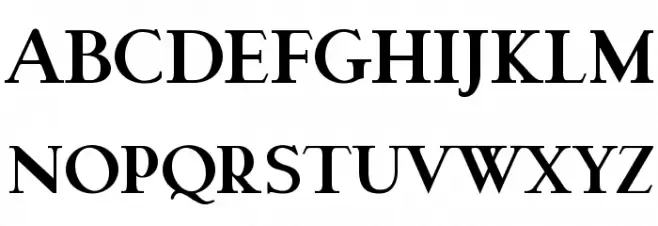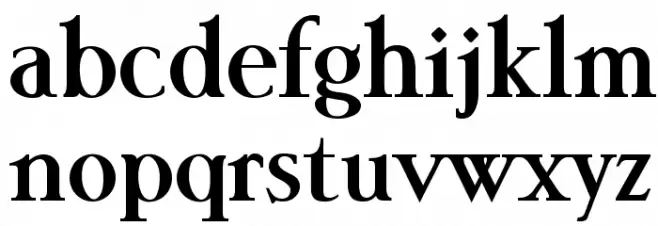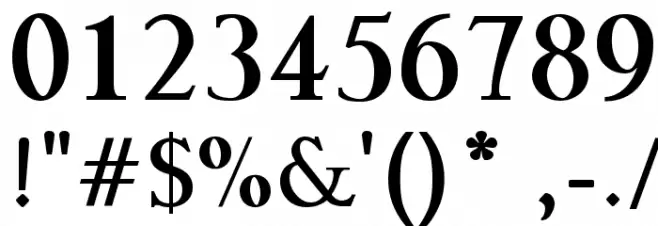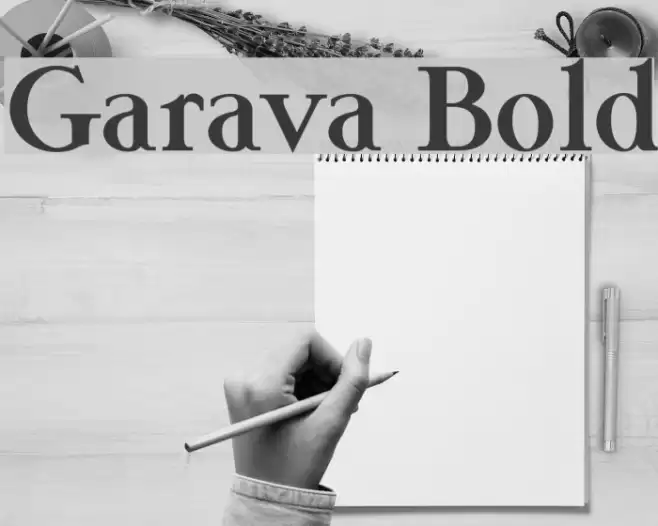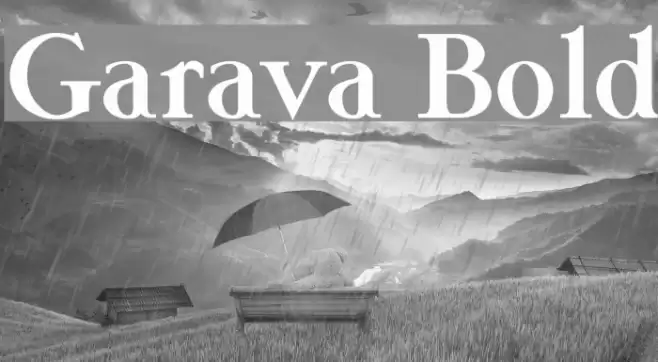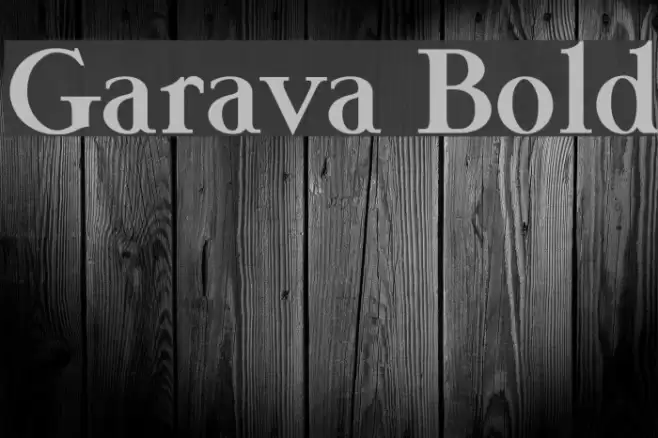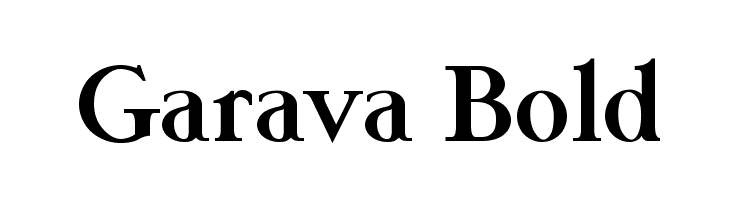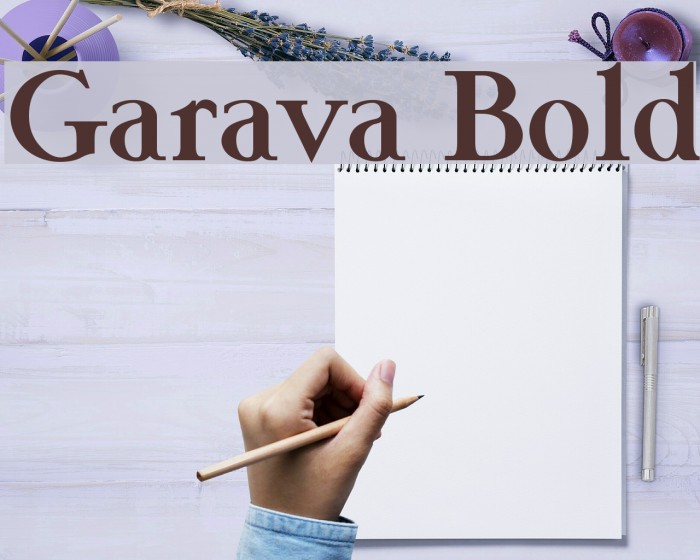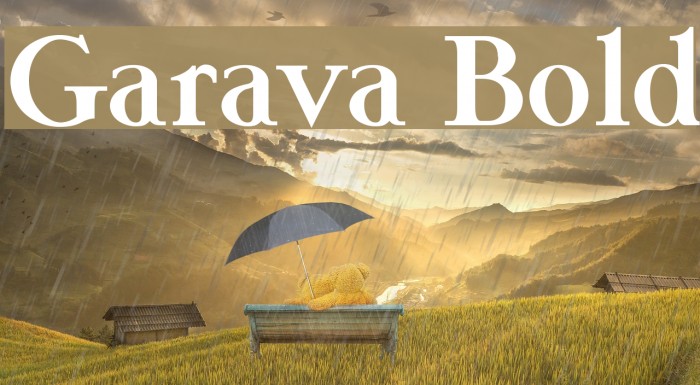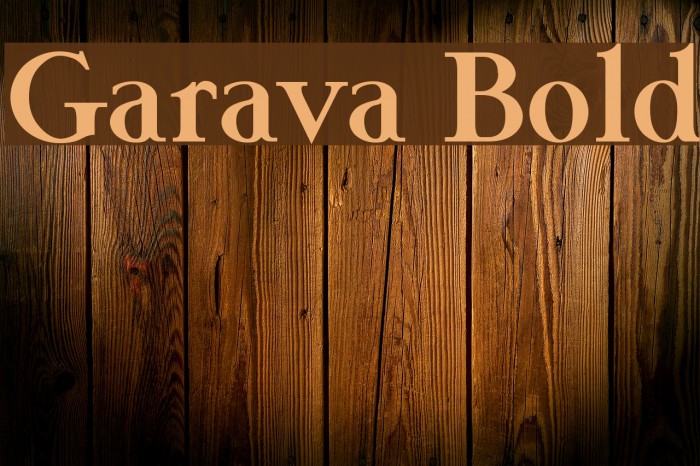
Garava Bold
This font features a classic serif design with strong, bold strokes and elegant curves. The uppercase letters are well-proportioned, with a slight contrast between thick and thin strokes, giving it a refined and sophisticated appearance. The lowercase letters maintain a consistent style, with rounded edges and a balanced structure. The numerals are clear and distinct, making them easy to read. Special characters are designed with the same attention to detail, ensuring uniformity across all glyphs. This font exudes a timeless elegance, suitable for a variety of design applications.
A bold serif font with classic elegance and refined strokes.
- Proposed Projects: Ideal for book covers, formal invitations, branding, and editorial design.
- Category: Serif
- Overall Style: Classic